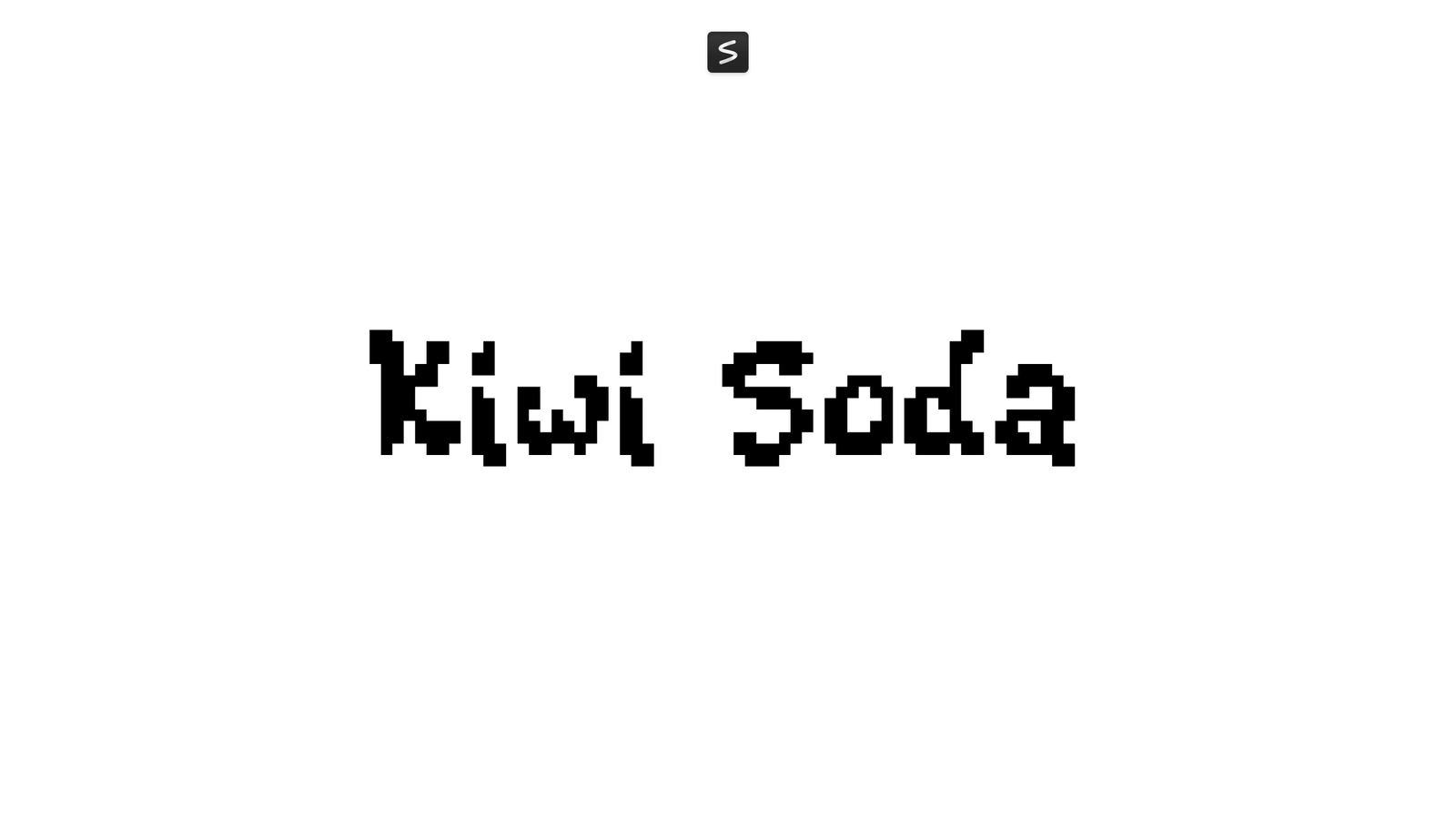
Kiwi Soda is a charming pixel-style bitmap font that blends the playful feel of handwritten letters with the blocky charm of low-resolution displays. Its slightly uneven, hand-drawn pixel shapes give it a quirky, casual personality that stands out from more rigid pixel typefaces.
This font shines in projects that call for a fun, lighthearted vibe with a touch of retro flair. Whether you’re designing indie game graphics, zines, stickers, or social media posts, Kiwi Soda adds an instantly recognizable handcrafted-meets-digital character to your work.
Because of its pixel-perfect construction, Kiwi Soda looks best at smaller sizes where its bitmap quality really pops. If you’re after a font that feels both nostalgic and fresh, Kiwi Soda is a delightful choice for adding personality to your designs.